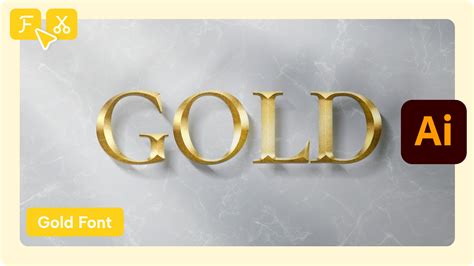
Realistic Gold 3D Illustrator Text Style Effect
Gold Font In Illustrator. Web get an awesome shiny gold effect solely in illustrator with the gradient tool!to learn how to use the gradient tool.
Web get an awesome shiny gold effect solely in illustrator with the gradient tool!to learn how to use the gradient tool.
Web get an awesome shiny gold effect solely in illustrator with the gradient tool!to learn how to use the gradient tool. Web get an awesome shiny gold effect solely in illustrator with the gradient tool!to learn how to use the gradient tool.